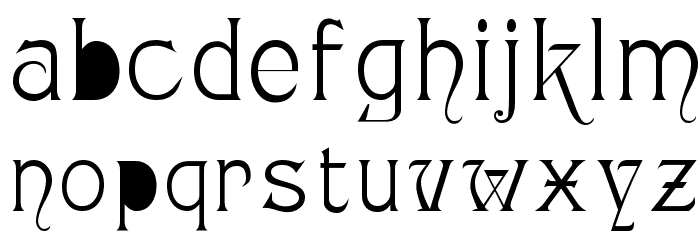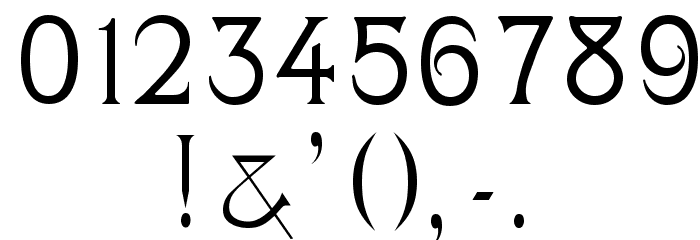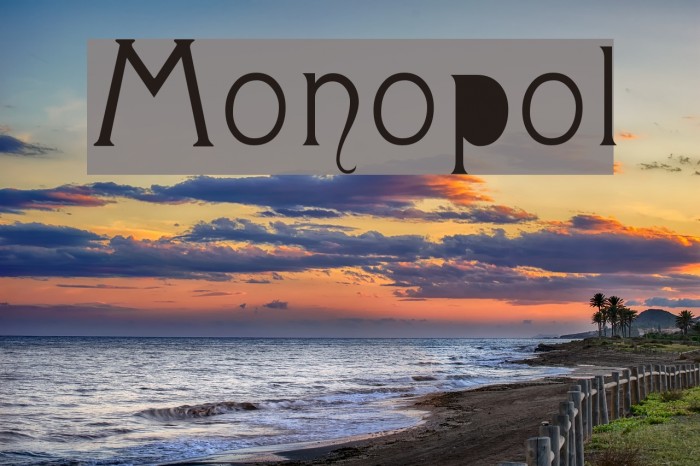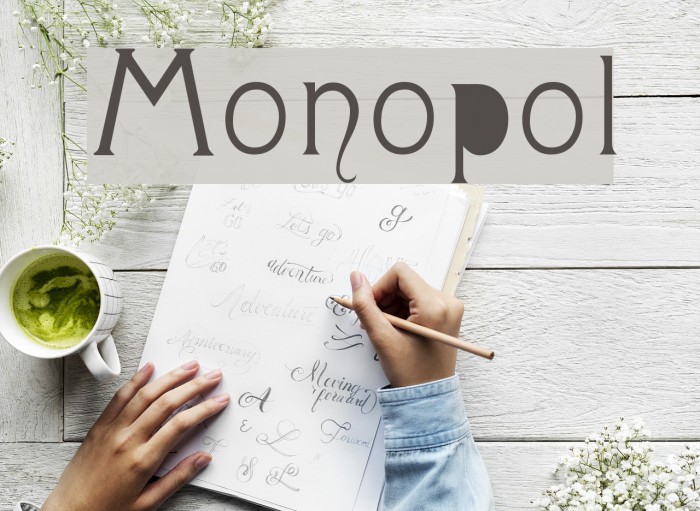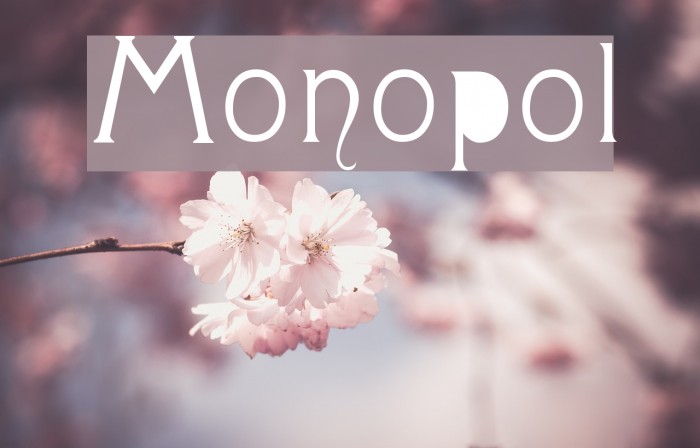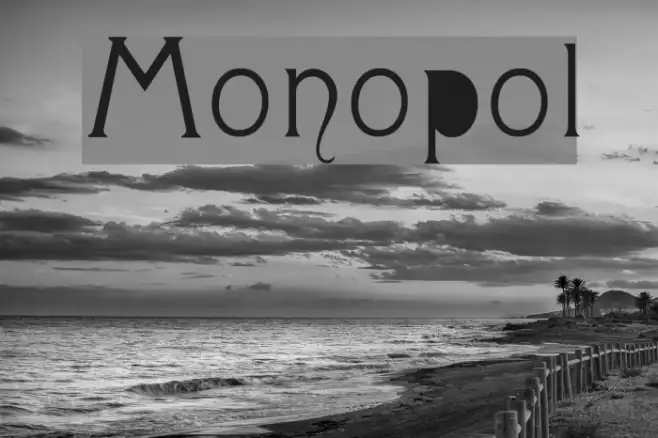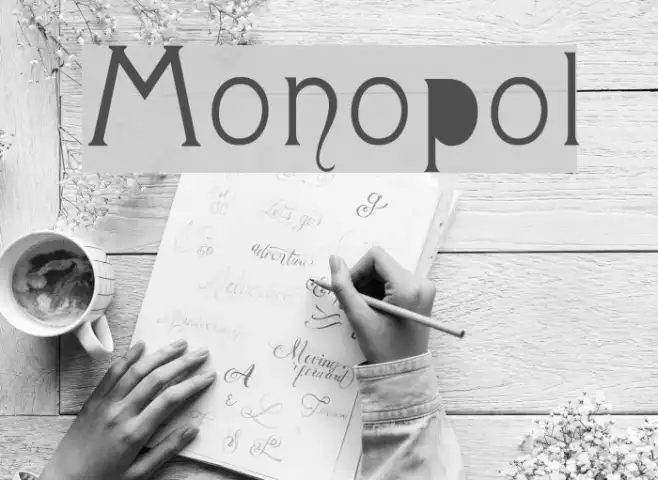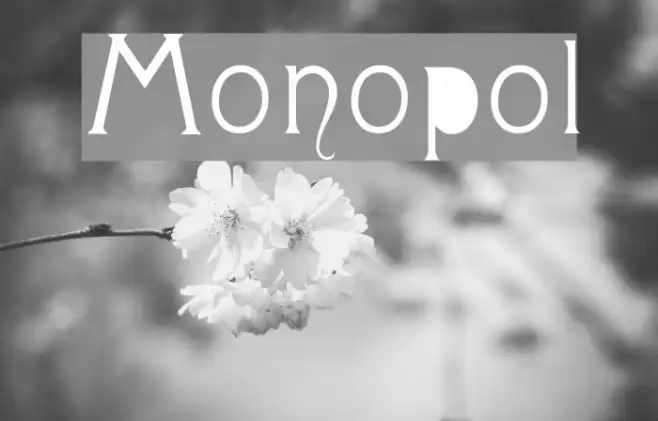
Monopol Font
This font features a unique and artistic design with a blend of modern and vintage elements. The uppercase letters are characterized by sharp, angular lines and occasional decorative flourishes, giving them a distinctive and stylish appearance. The lowercase letters maintain a more traditional form but with subtle curves and unique terminal styles that add to the overall aesthetic. The numerals are bold and clear, ensuring readability while maintaining the font's artistic flair. Special characters are thoughtfully designed to complement the letterforms, making this font versatile for various creative applications.
A stylish and artistic font with modern and vintage elements, featuring unique decorative flourishes.
- Font: Monopol
- Proposed Projects: Ideal for branding, logo design, posters, and creative projects that require a distinctive and artistic touch.